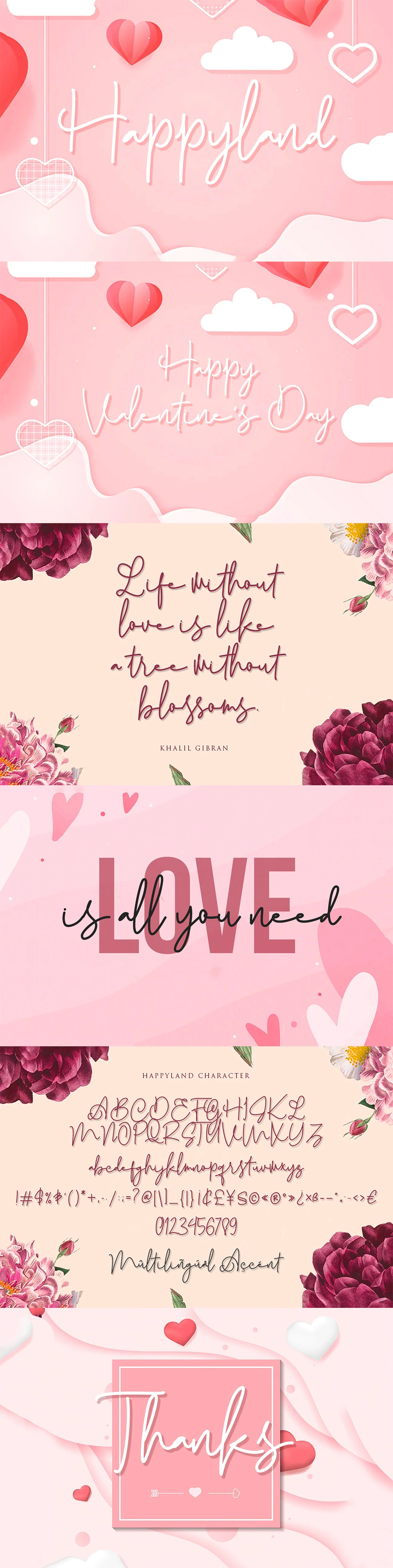
Design of Free Happyland Script Font
Free Happyland Script Font is a lighthearted and romantic display font that will work especially well on any valentine’s or wedding crafts from Agni Ardi Rein Prasetyo. It contains uppercase, lowercase, numbers, punctuation, symbols, and support multilingual. Happyland font is suitable for handcrafted designs, social media, texts, posters, fashion, logos, branding, photography, invitations, logos, advertisements, quotes, and other any business related.
Designed the Free Happyland Script Font featuring multilingual support.